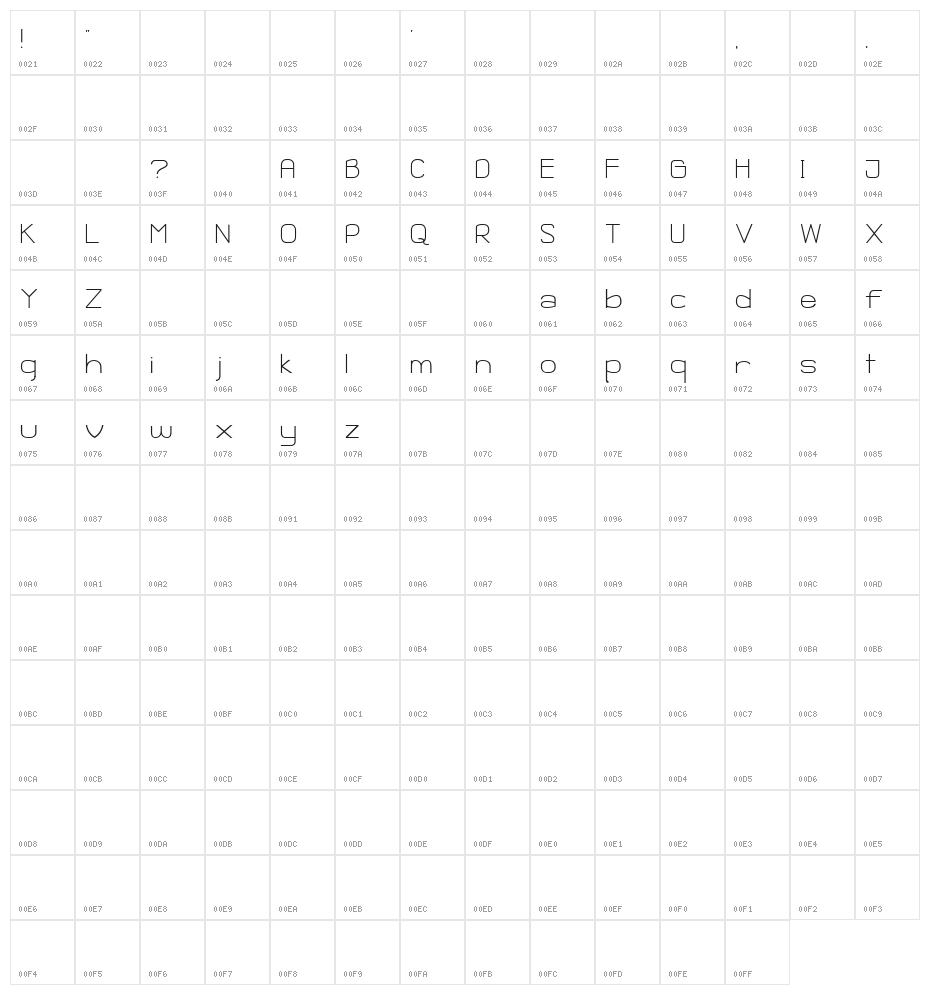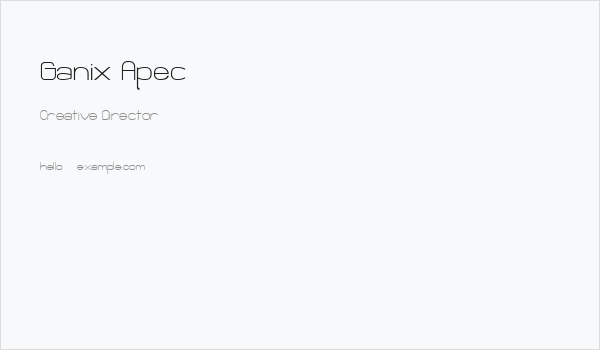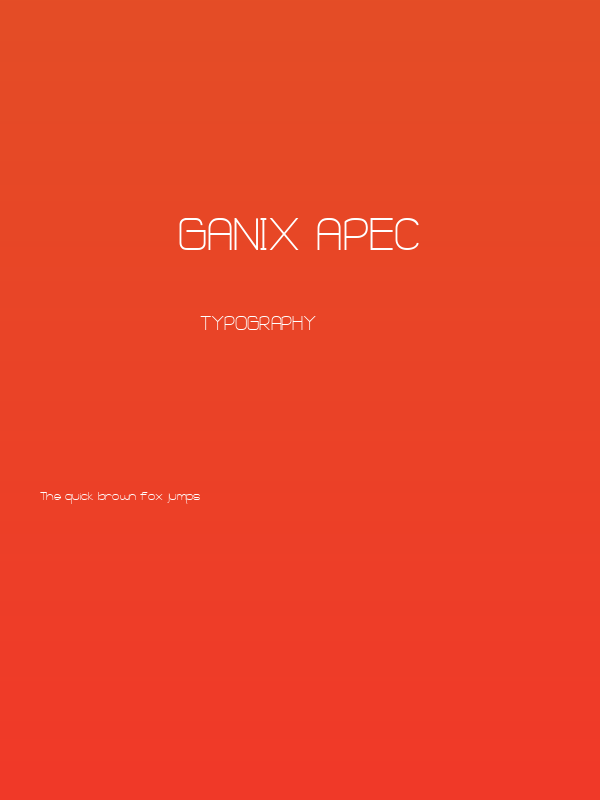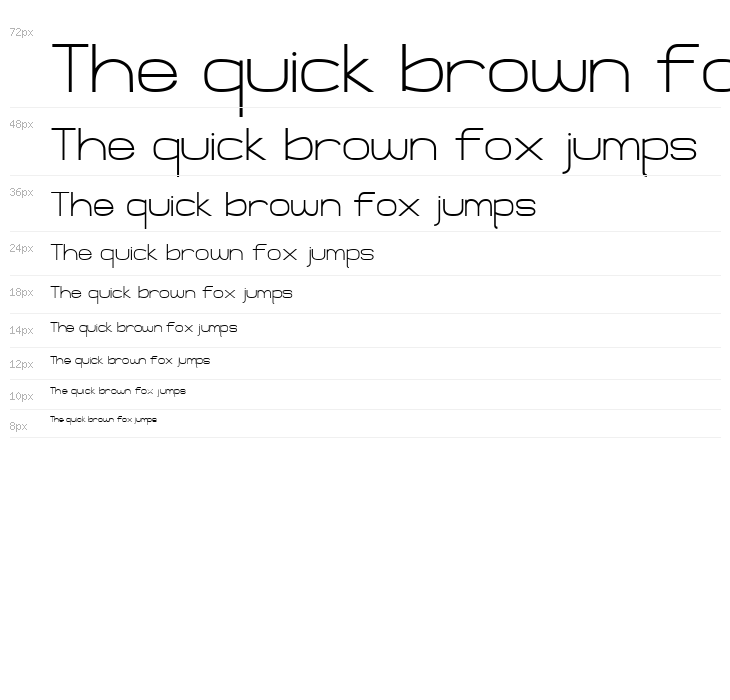
Ganix Apec Font
Ganix Apec Description
This font features a modern, geometric design with clean, straight lines and rounded edges. The uppercase letters are uniform in height, creating a cohesive look, while the lowercase letters maintain a similar structure with slight variations in curvature. The numerals are consistent with the overall style, offering a balanced appearance. Special characters are designed to complement the letters, maintaining the font's sleek and contemporary aesthetic. The font's simplicity and clarity make it highly legible, suitable for various applications.
Use CaseHeadlines, Logos, Digital Interfaces
Proposed ProjectsIdeal for tech branding, modern websites, digital interfaces, and minimalist design projects.